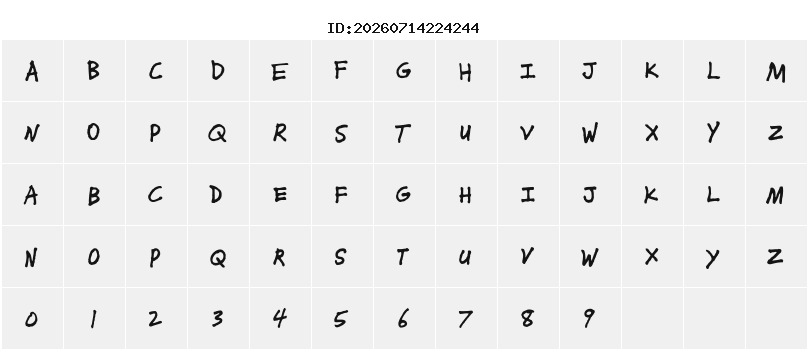
J.Kasperville Preview
• Font Name: J.Kasperville
• Full Font Name: J.Kasperville
About J.Kasperville.ttf
J.Kasperville.ttf is a modern, elegant sans-serif font designed for ultimate readability and visual harmony. Perfect for branding, headlines, web design, and print materials.